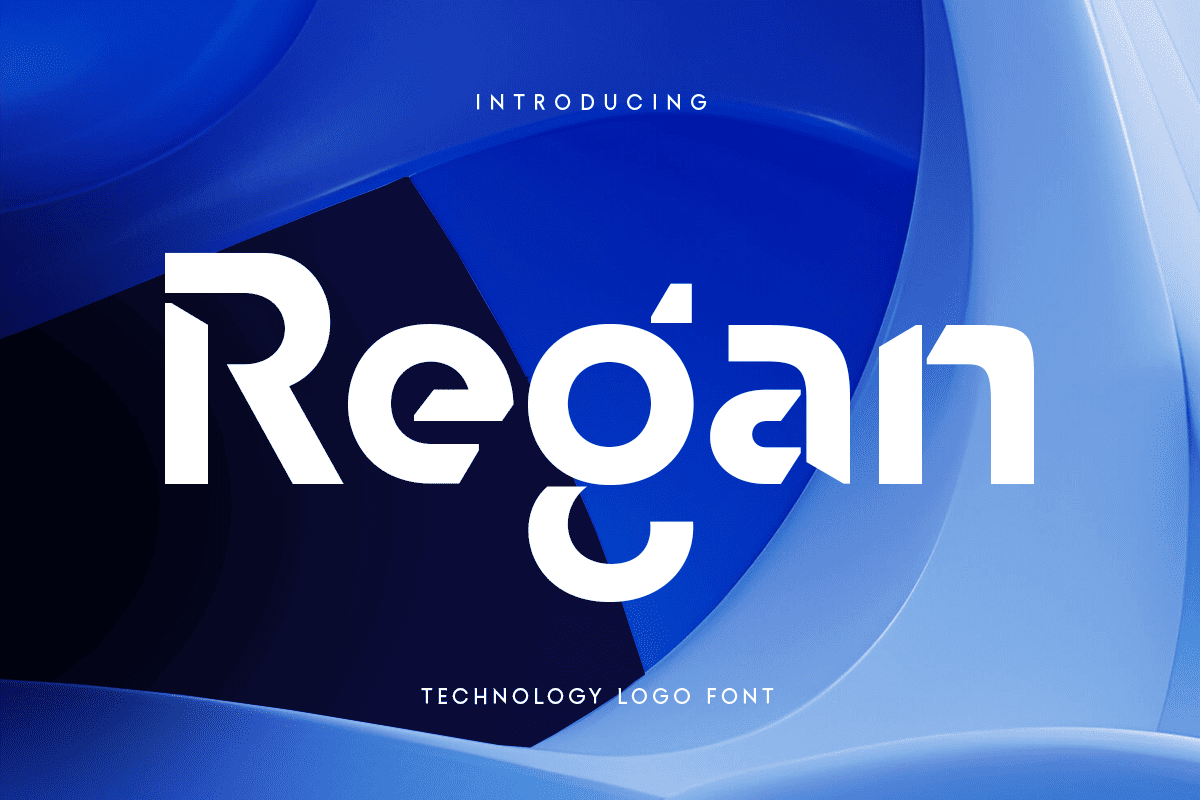
Regan
-Technology Logo Font
Regan Technology Logo Font
Regan is a technology-inspired font designed to embody innovation and progress. With its sleek, geometric shapes and minimalist design, Regan brings a futuristic edge to any project, making it the perfect choice for tech-focused branding.
Perfect for Tech Logos
Whether you’re designing logos, app interfaces, or branding materials, Regan ensures your projects stand out with modern sophistication. Its clean lines and bold character make it ideal for businesses in the digital, software, and technology industries.
Innovation Meets Design
Regan combines functionality with a futuristic aesthetic, making it a versatile tool for creative professionals. From web design to product packaging, this font adds a touch of modernity and professionalism to every creation.
Regan Technology Logo Font Features:
• Alternates Characters Ready